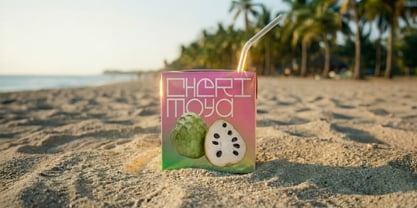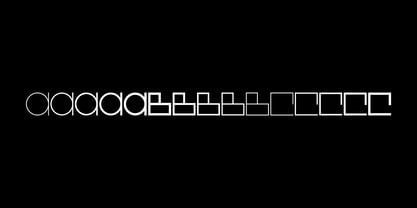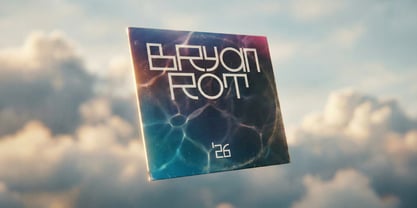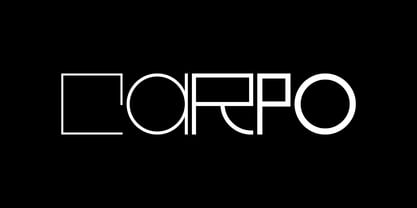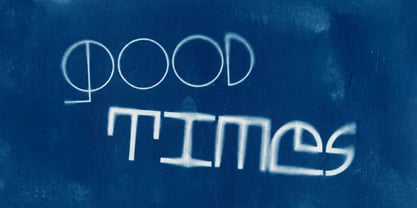
Carpo
Carpo is a geometric variable typeface developed at the Minneapolis College of Art and Design and later finalized at Bauhaus-Universität Weimar. Built on a reduced set of recurring forms and consistent stroke widths across its styles, it establishes a clear and cohesive visual system. Spanning a range from Thin to Medium, Carpo combines geometric precision with the benefits of a variable font. The typeface became known in part through its use in the visual identity for CIVA Festival 2022 in Vienna. Designed as an experimental display font, Carpo is particularly well suited for headlines, visual identities, and animated applications.